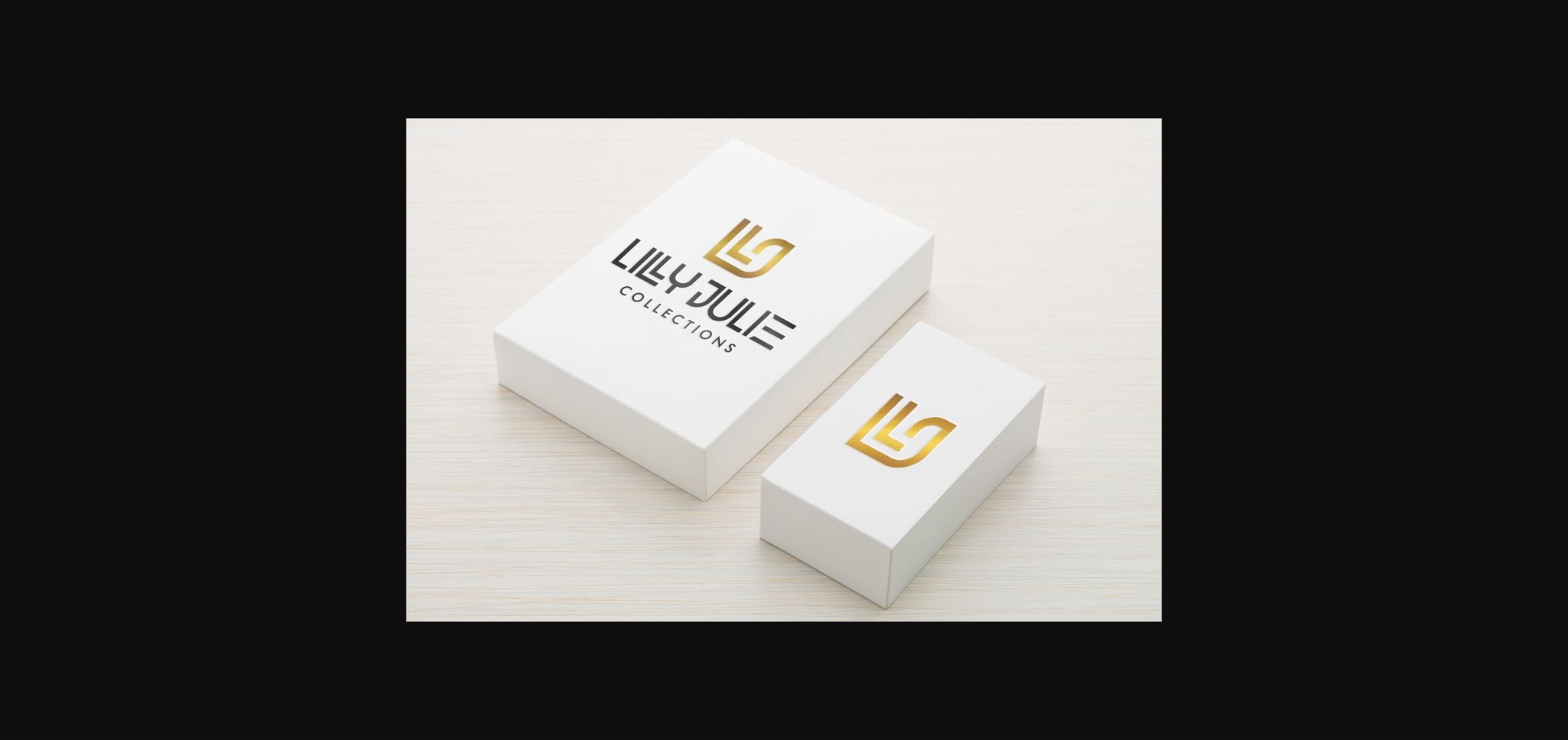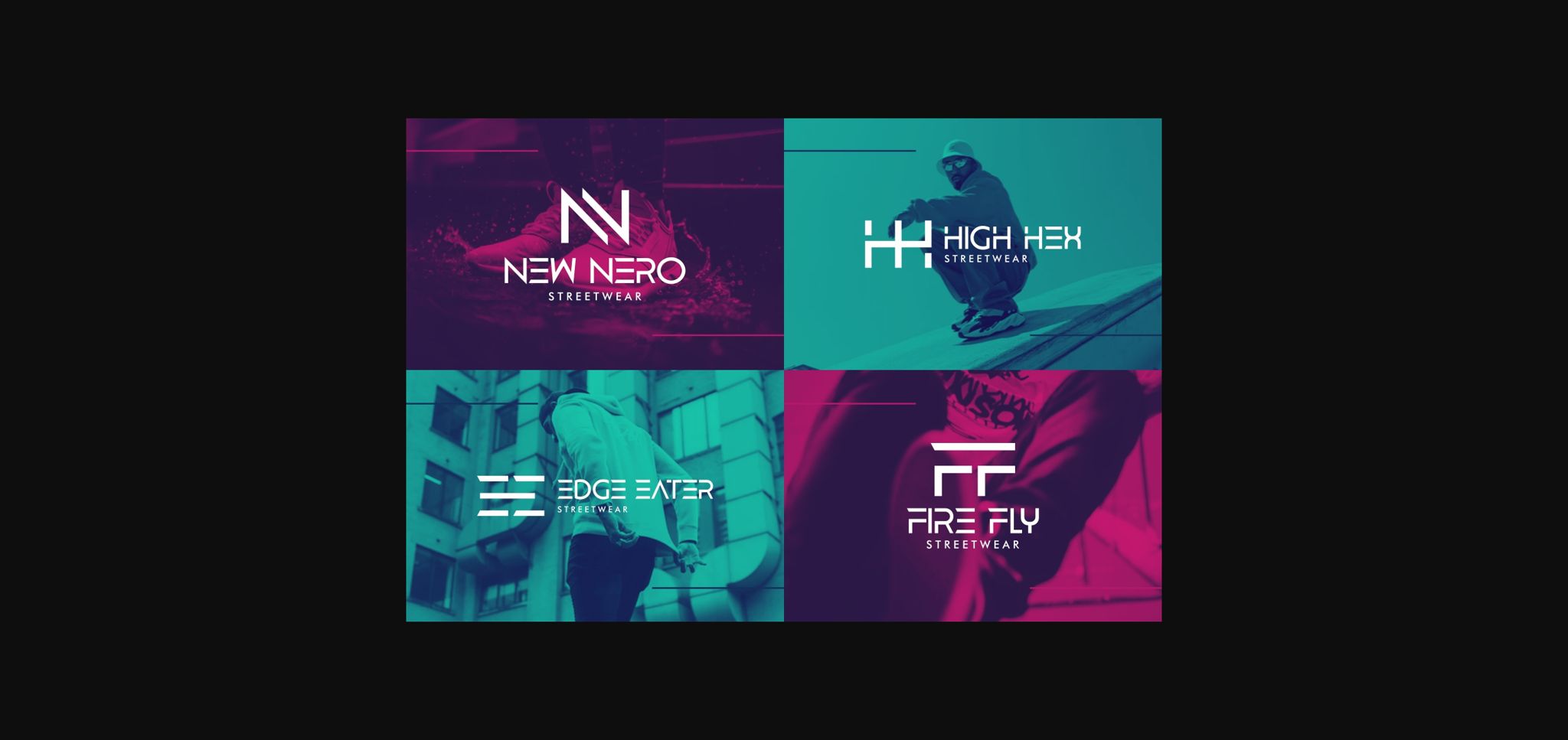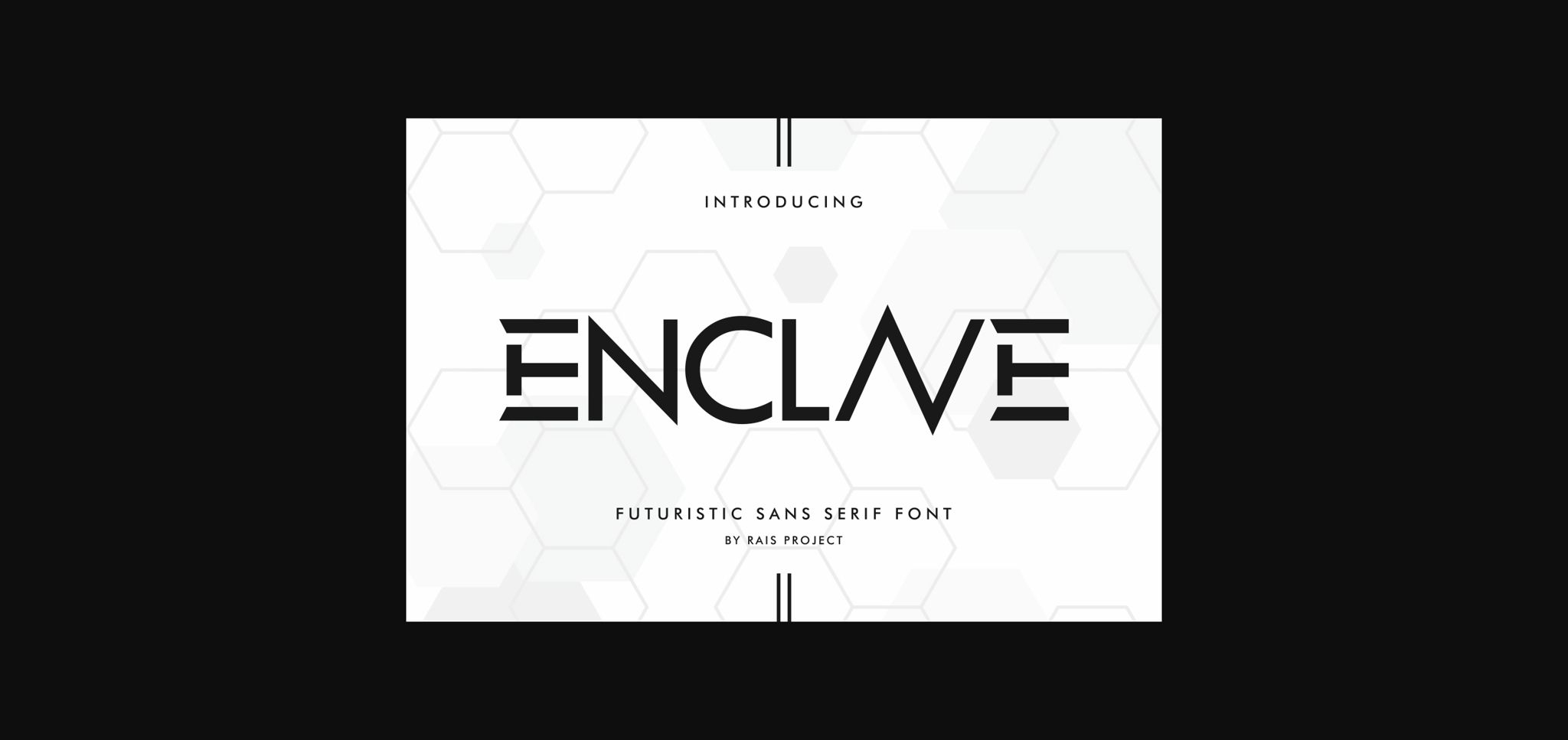
About Enclave Font
Enclave is a cool and futuristic sans serif font. This font would be ideal for writing web designs, business cards, or pretty much anything else that requires a unique touch.